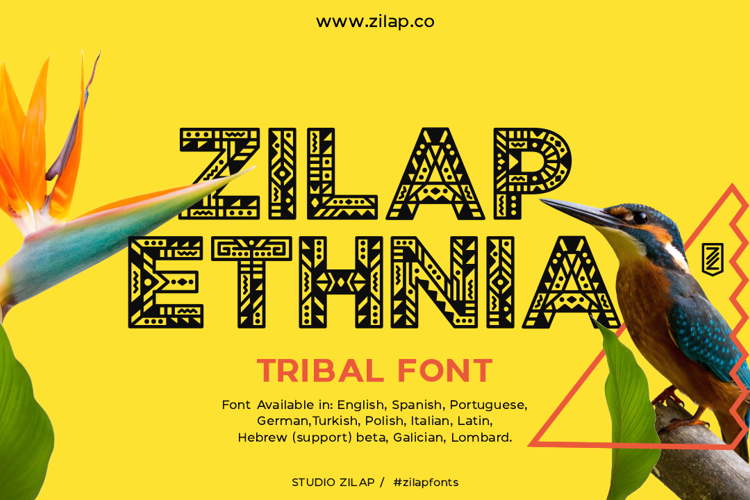
Zilap Ethnia Font
Inspired by the African Vai script invented in the 1800s by eight illiterate Vai men.
Revealing secrets about the unknown evolutionary origins of handwriting and the development of writing.
The reason this text is so important, archaeologically, is because it was created "in total isolation".
The Vai are a Manden ethnic group in the Republic of Liberia, a country on the west coast of Africa.
Inspired and designed by Zilap Studio
Assembly and foundry by LJ Design Studios